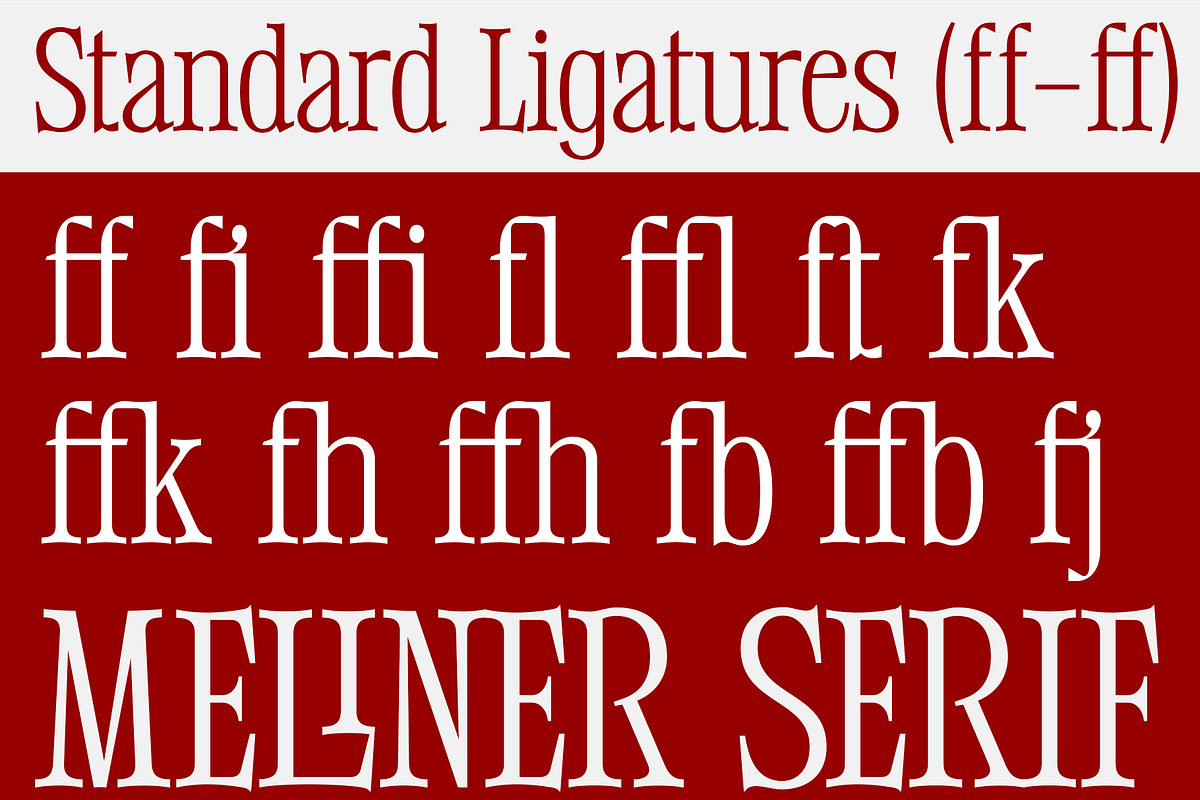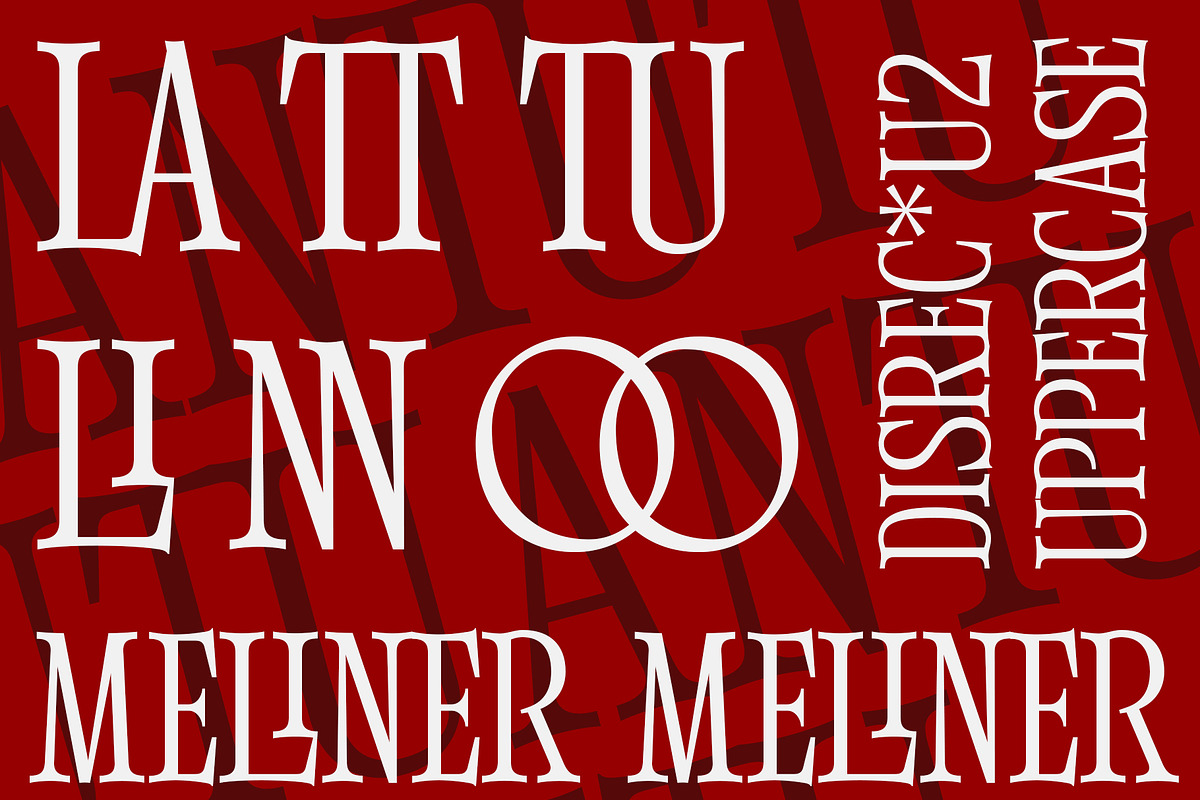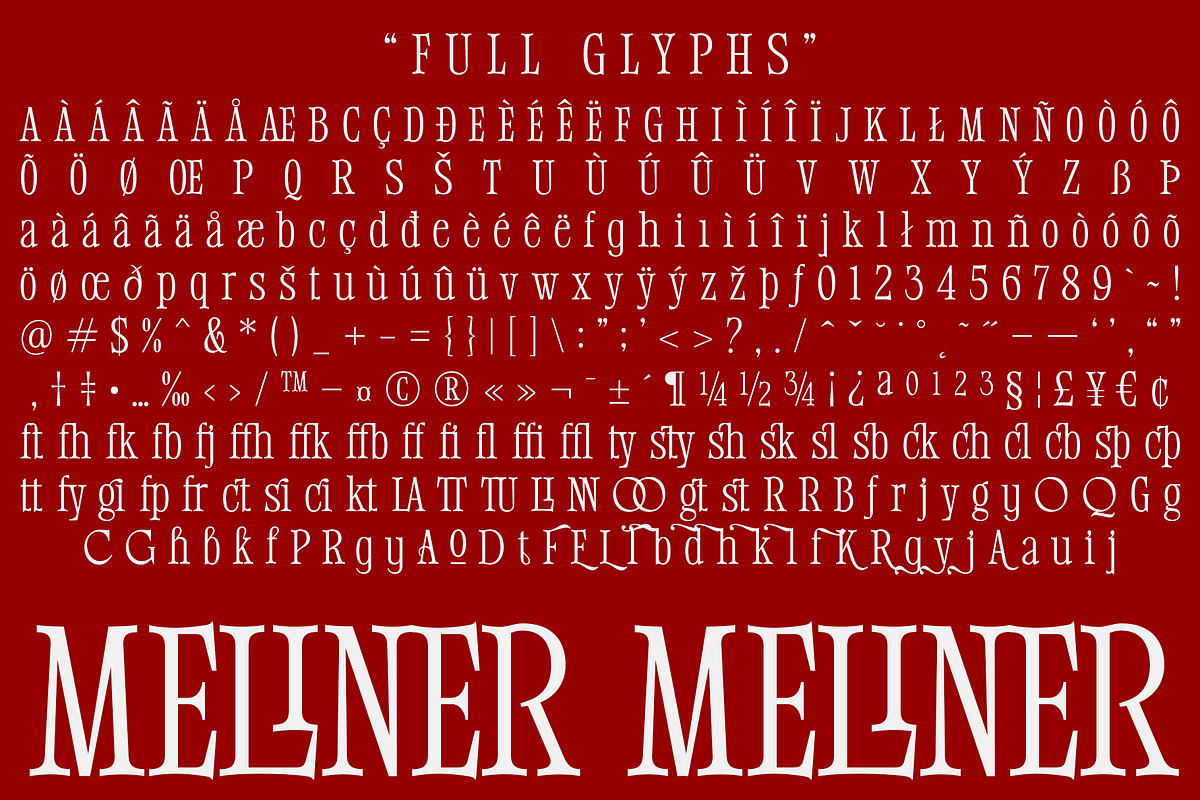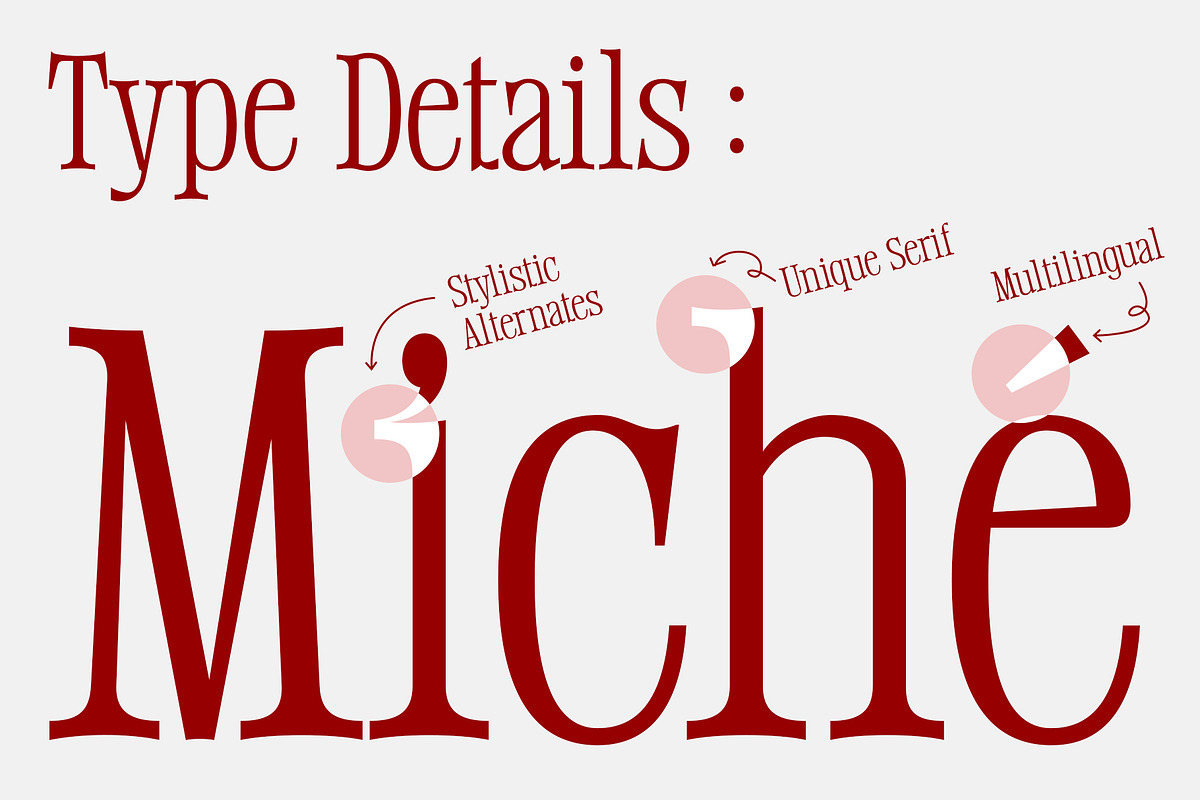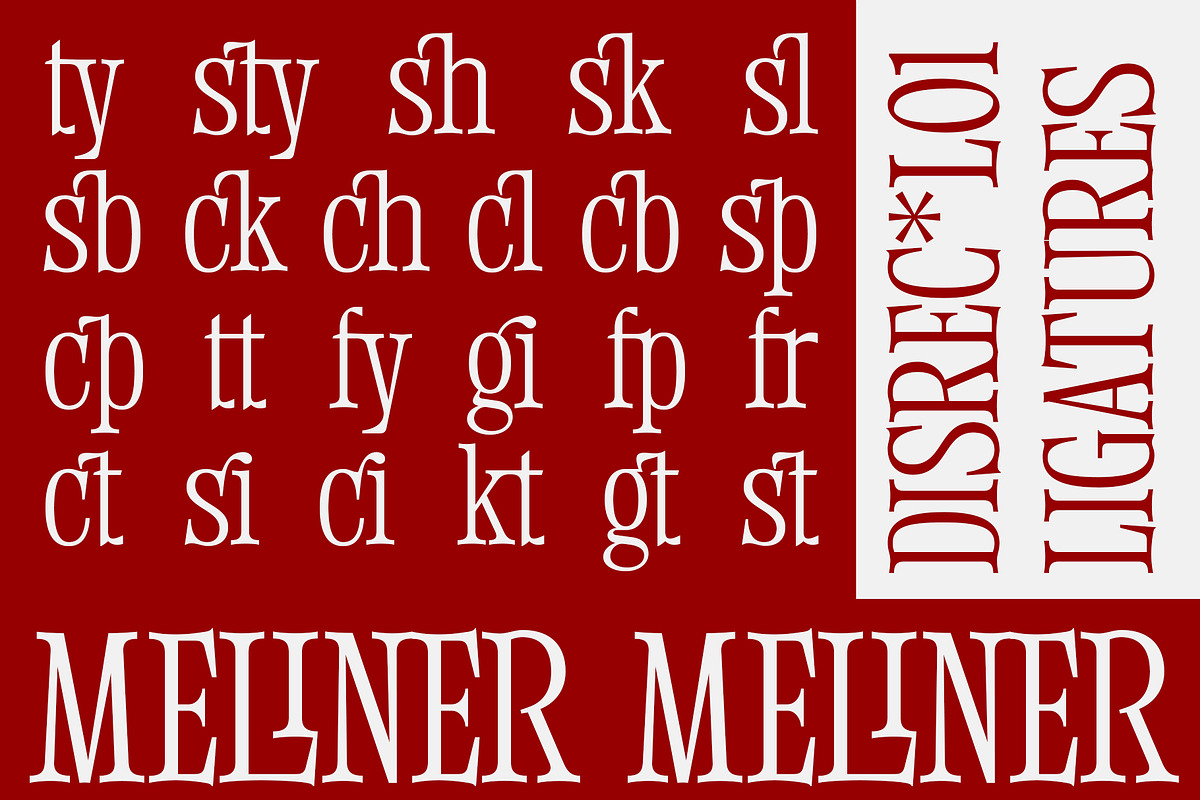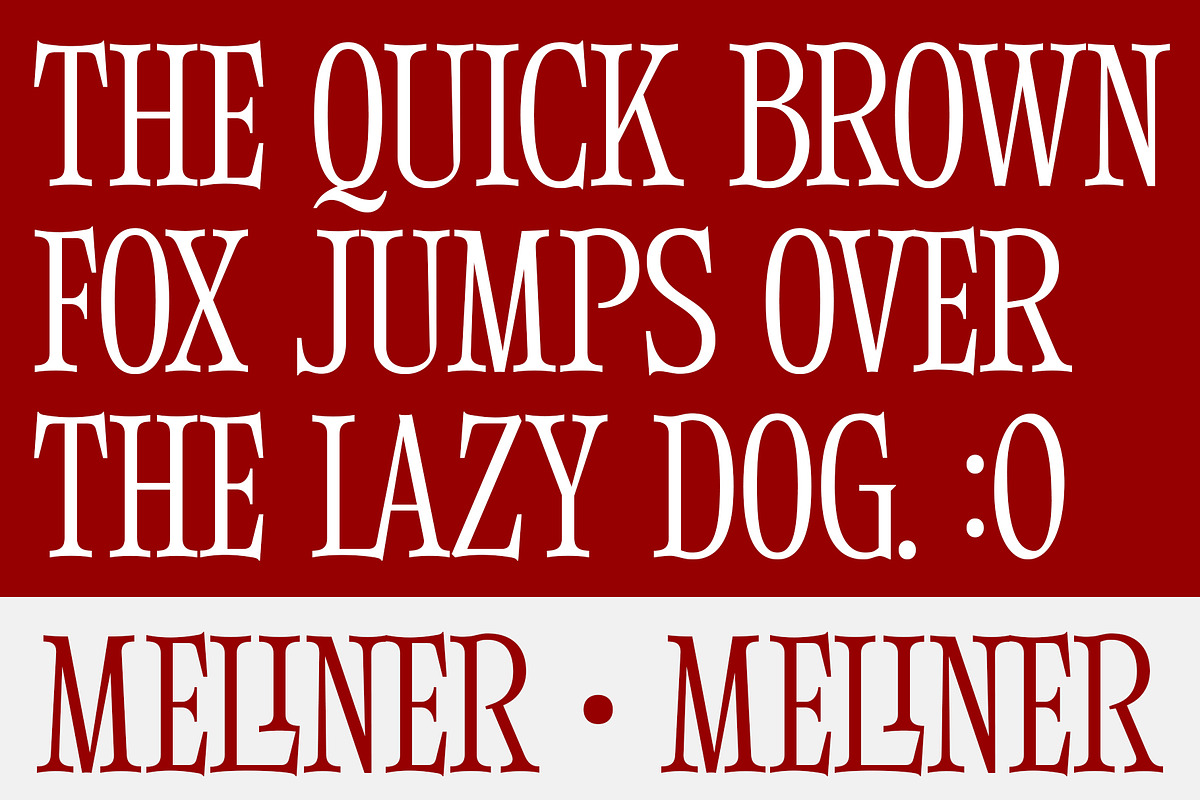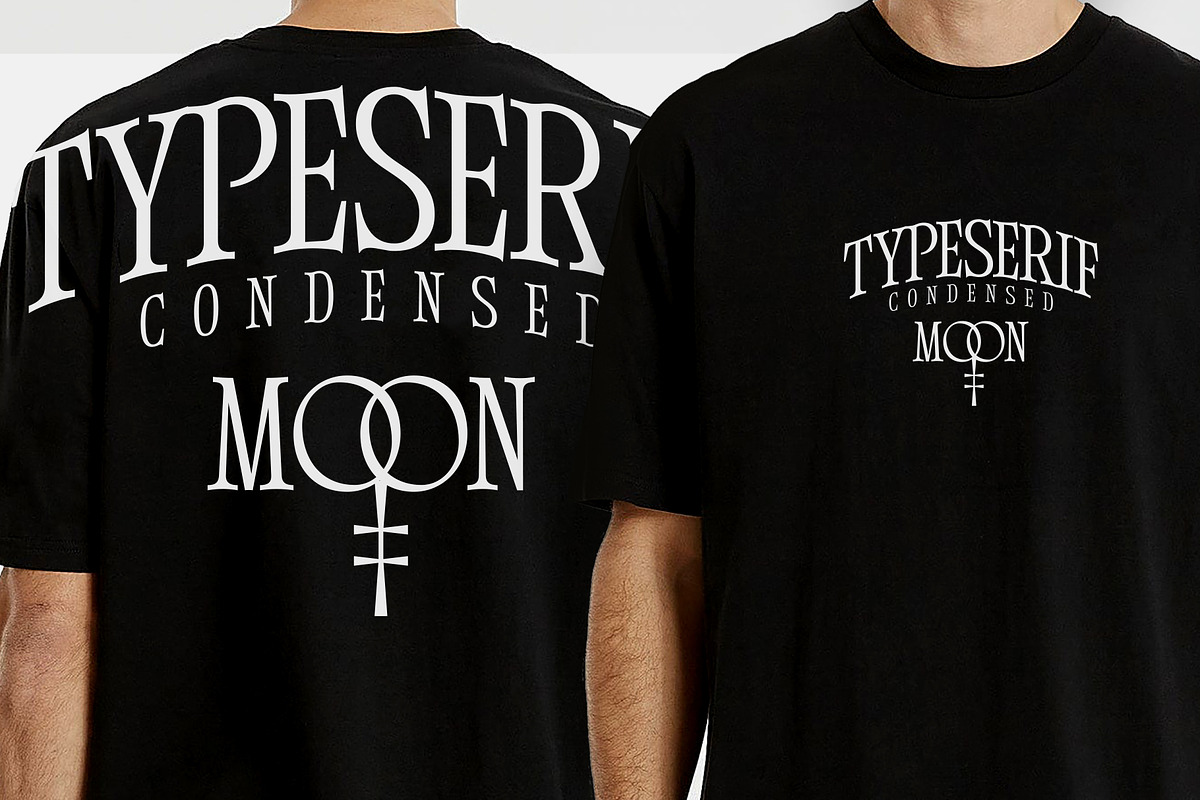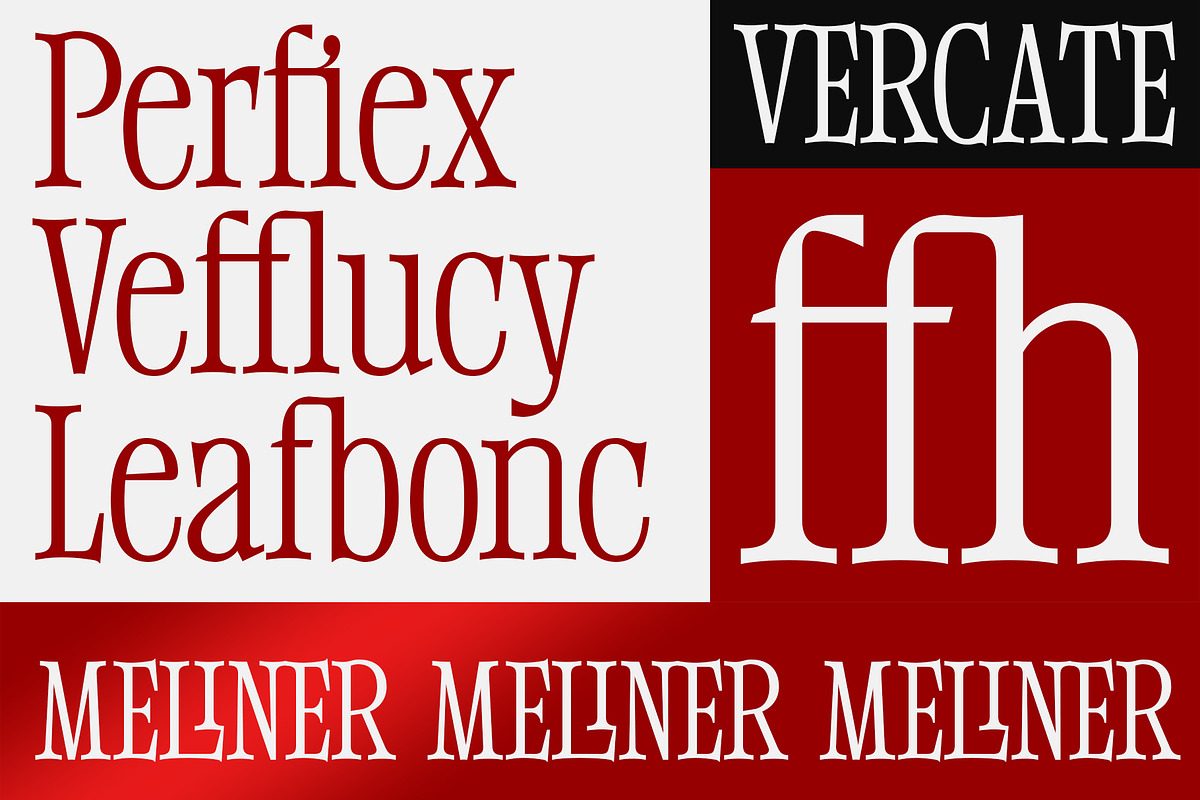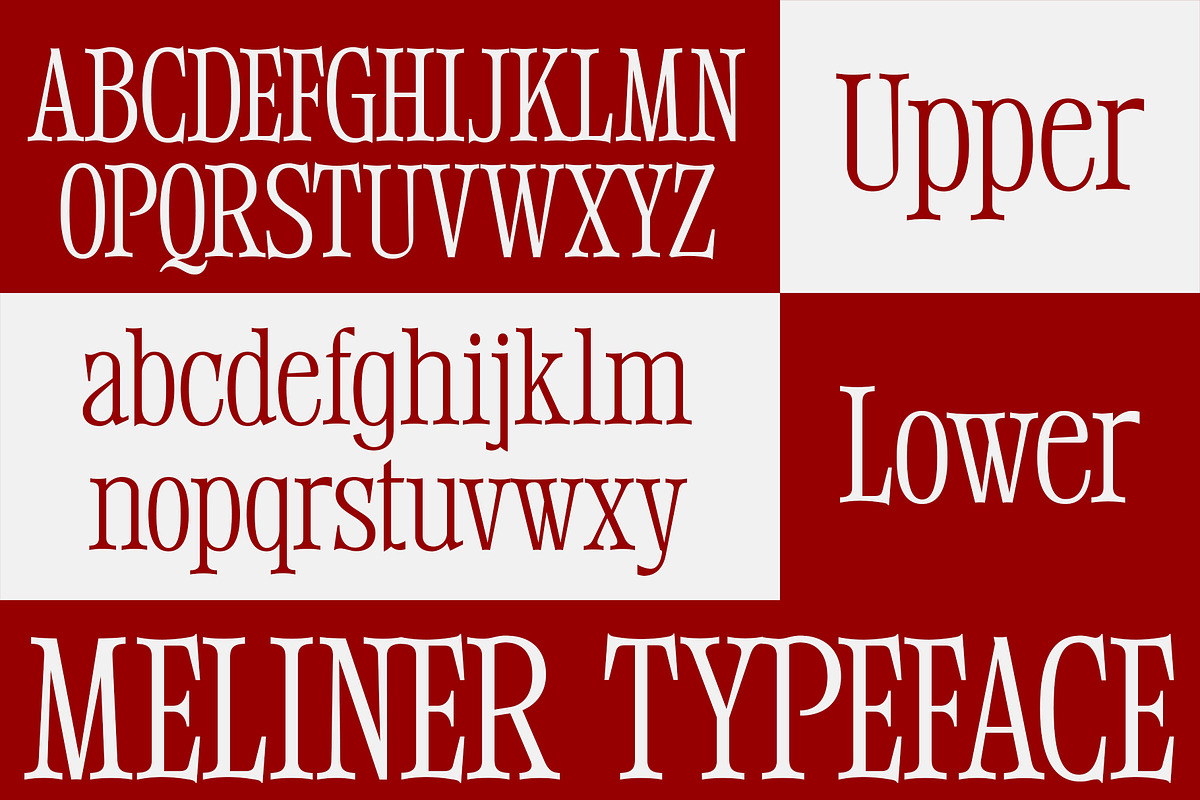
Meliner
Meliner is a compact display serif font that has a distinctive and elegant serif shape that is perfect for creating sleek, impressive designs that give it a modern, stylish personality.
Meliner comes with 40 ligatures and 46 alternative glyphs.
- All Caps Font with different uppercase and lowercase
- Numbers & Symbols
- Supported Languages
- Alternates and Ligatures